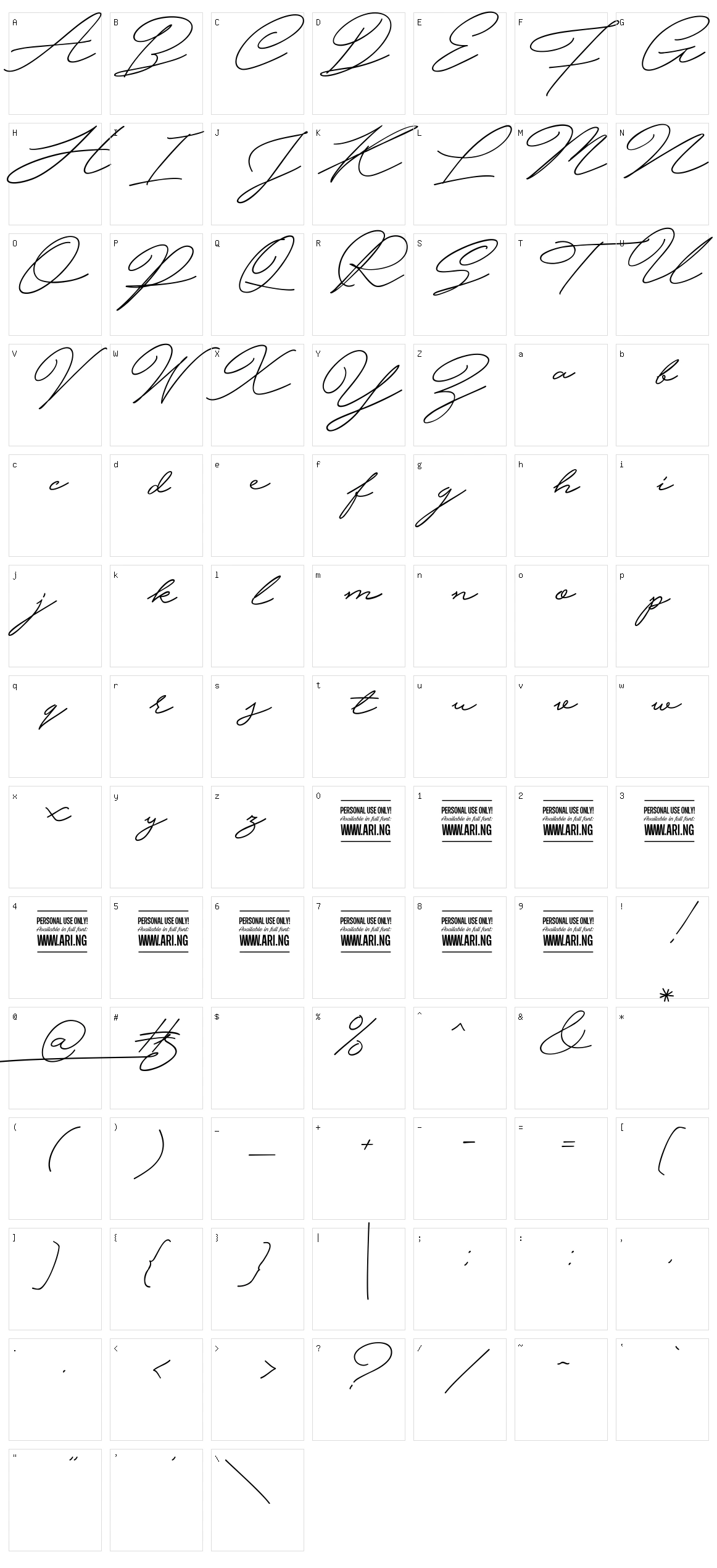
Hijrnotes is a quick, handwritten and monolined script font.
Big uppercase with a very small lowercase, but it is still elegantly readable.
Very good for autography design, name cards, neon signs and quote typography posters and flyers.
Designed by Hendra Pratama.